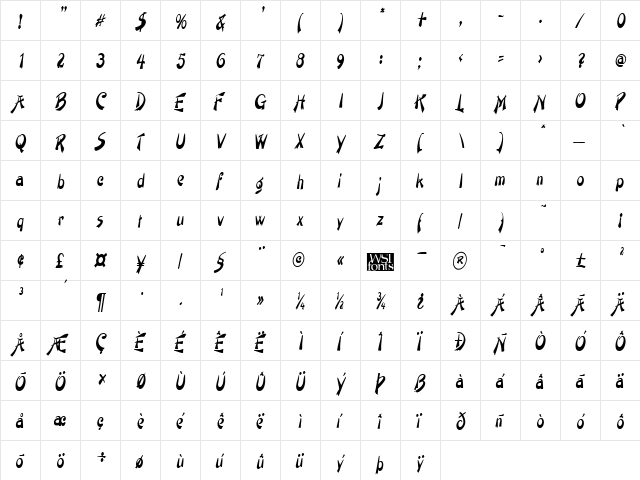
PainterNarrow Italic
Design Context for PainterNarrow Typeface
PainterNarrow is a composed and adaptable typeface that performs quietly and consistently across a wide range of design contexts. The dynamic lean of this cut emphasises speed and emphasis in any layout. The condensed width makes it efficient for tight spaces without sacrificing legibility.
Pro Tip: Use PainterNarrow for emphasis, pull quotes, and subheadings where its slanted energy can add rhythm to the layout.